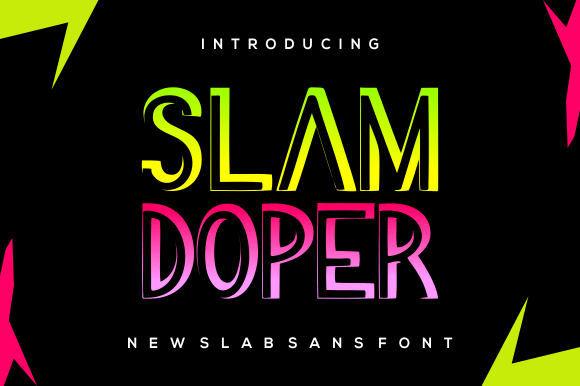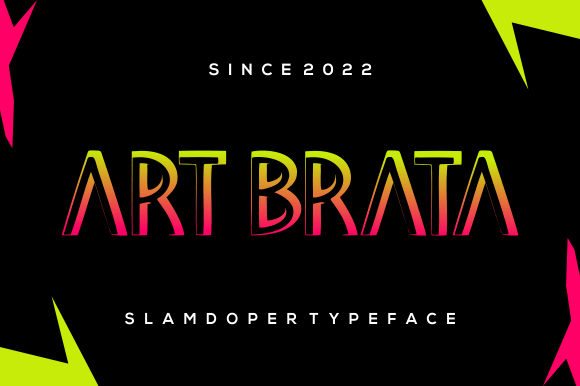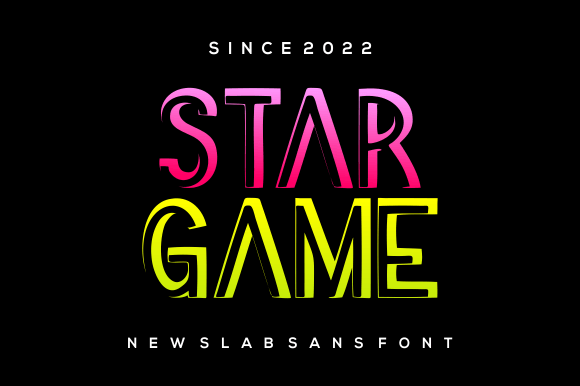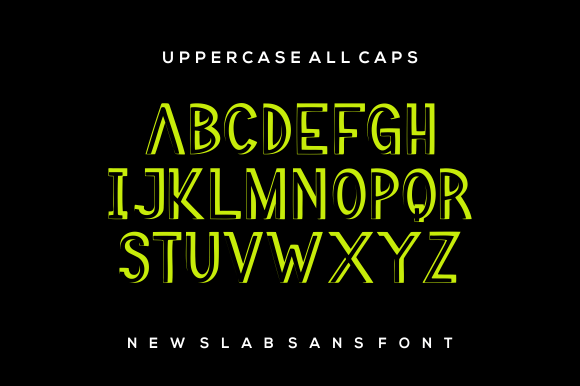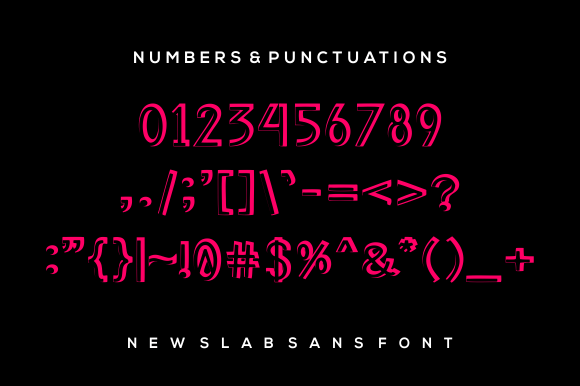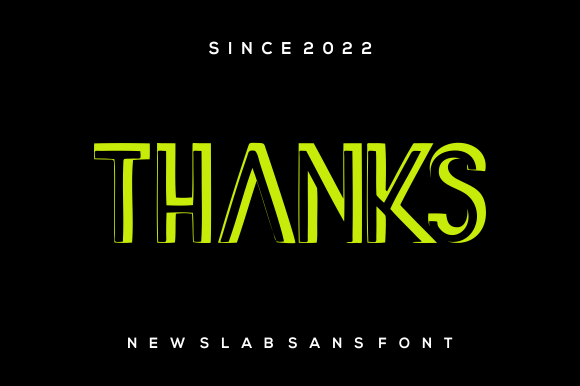
Slamdoper Font
Slamdoper: A Sharp and Elegant Slab Serif Typeface
Slamdoper is a sharp and elegant slab serif typeface. Moreover, this refined font is the perfect choice for projects that need a clean look and elegant touch. It’s especially well-suited for packaging design, perfume branding, and fashion design presentations.
Key Features of Slamdoper
• Sharp Design: Offers precise and well-defined letterforms.
• Elegant Style: Brings sophistication to designs[5].
• Clean Look: Features crisp, uncluttered appearance.
• Versatile Application: Perfect for luxury and fashion projects[8].
Best Uses for Slamdoper
Thanks to its unique characteristics, Slamdoper works especially well for:
When using Slamdoper in your designs, keep these tips in mind:
• Try it for headlines or short text to showcase its sharp and elegant style.
• Use different sizes to highlight its clean features.
• Pair with simpler fonts for body text to create balance[4].
• Let its refined look enhance luxury design projects.
To sum up, Slamdoper is an excellent choice for designers seeking a sharp and elegant slab serif typeface. Its clean and sophisticated design makes it perfect for high-end projects. Whether you’re working on packaging design, creating perfume branding, or developing fashion presentations, Slamdoper offers the perfect blend of precision and elegance.
Furthermore, Slamdoper’s distinctive design allows it to shine in contexts where sophistication is key. For instance, from luxury packaging to fashion presentations, this font can elevate your projects with its refined style. Also, its sharp yet elegant appearance works particularly well in designs that aim to make a sophisticated impact.
In conclusion, Slamdoper truly captures the essence of elegant design in slab serif typography. Its versatility across different applications shows how well it can serve various creative needs. Therefore, for those wanting to add a touch of sharp sophistication to their work, Slamdoper can enhance any design with its unique style. Ultimately, it’s perfect for designers aiming to make an elegant, refined impact across luxury creative projects.